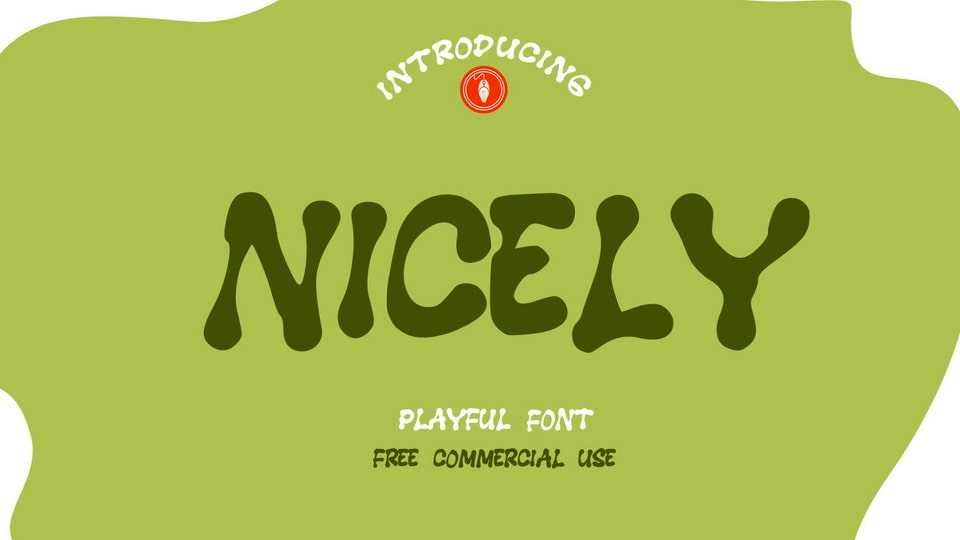
Download Nicely Font, a playful handwritten typeface with a friendly and cute look. Nicely font is suitable for any projects such as: homeware designs, product packaging, mugs, quotes, posters, shopping bags, t-shirts, book covers, greeting cards, labels and all your other lovely projects that need a beautiful taste.
Designer: Bandofol Studio